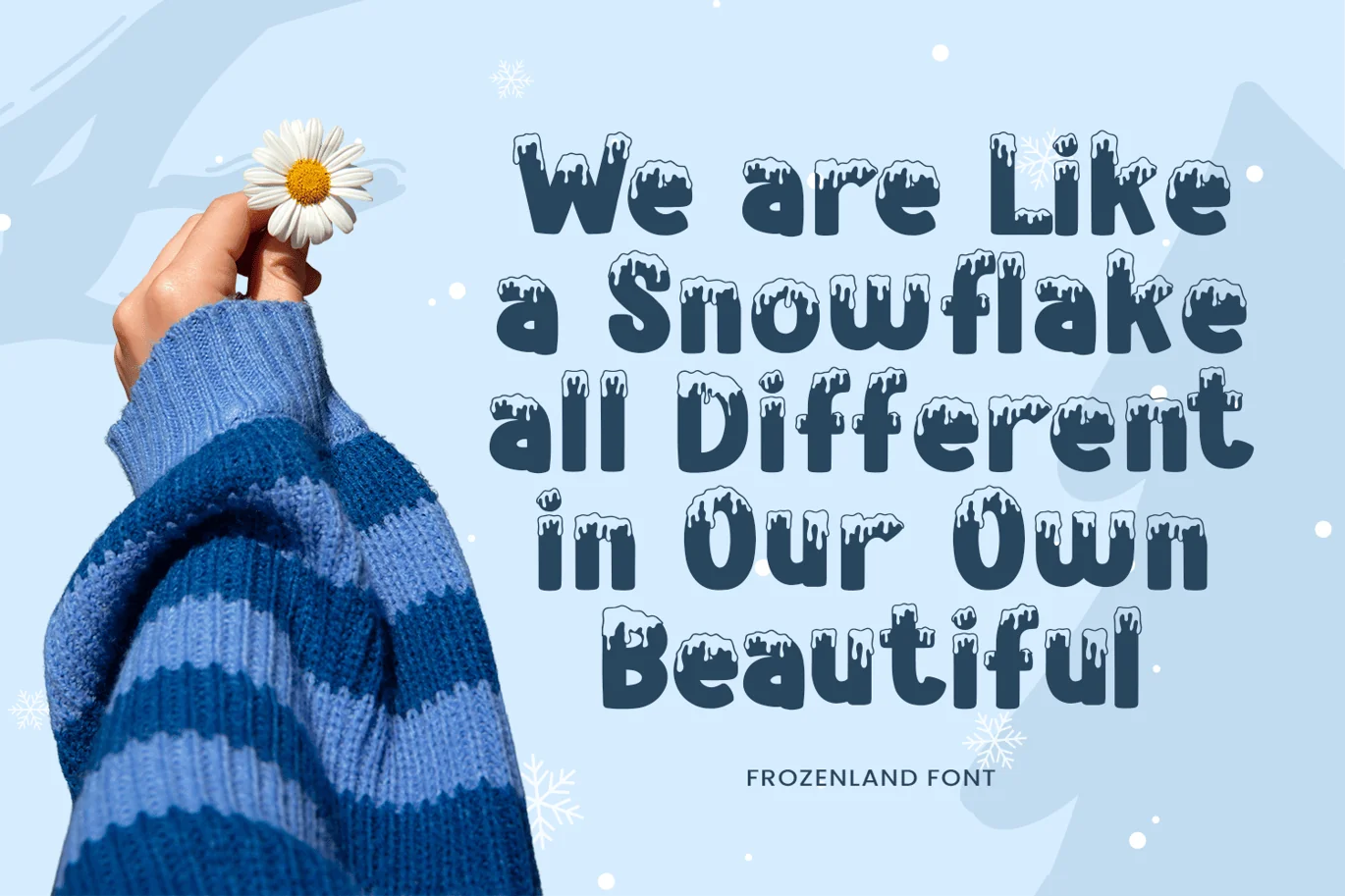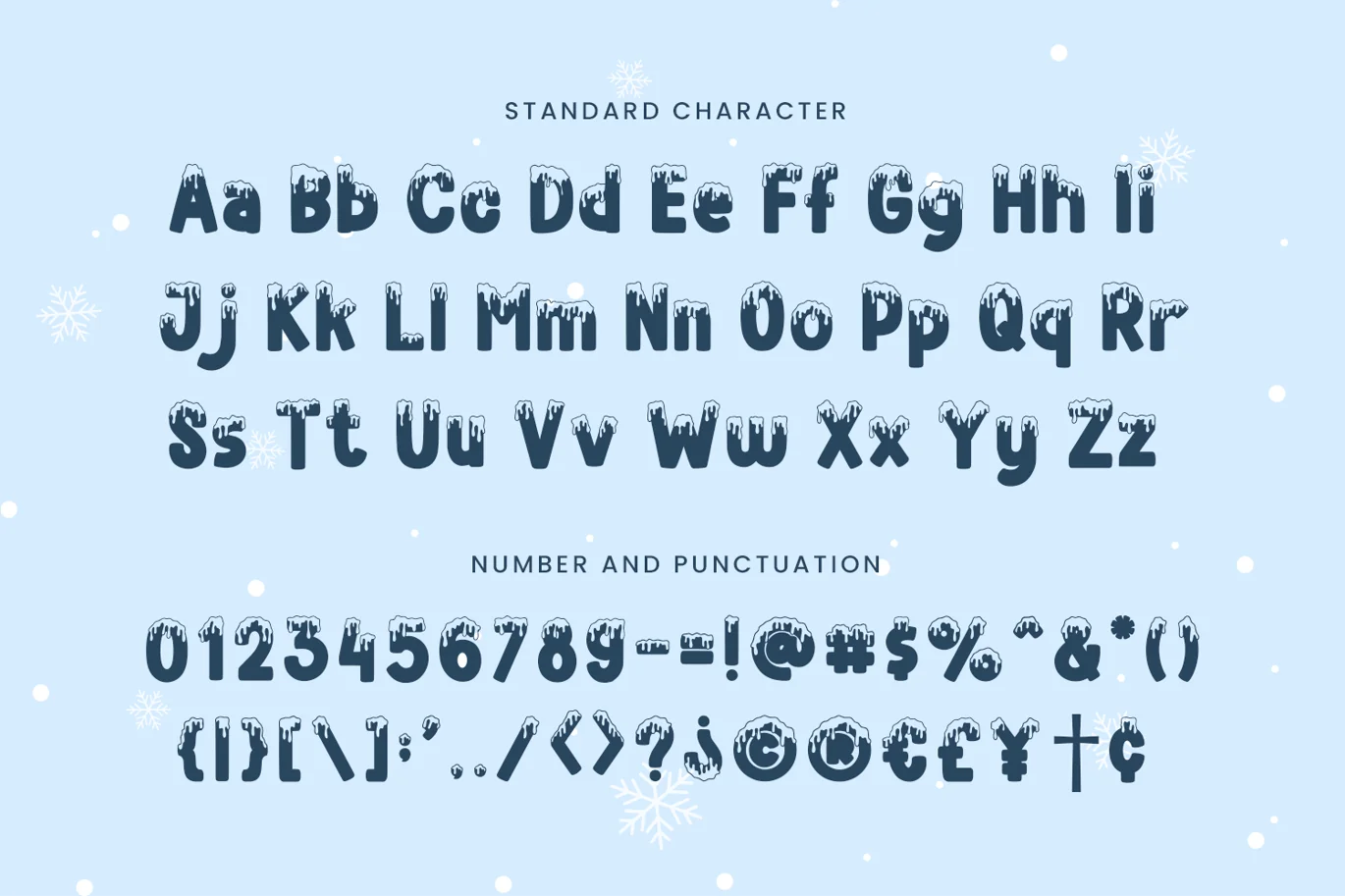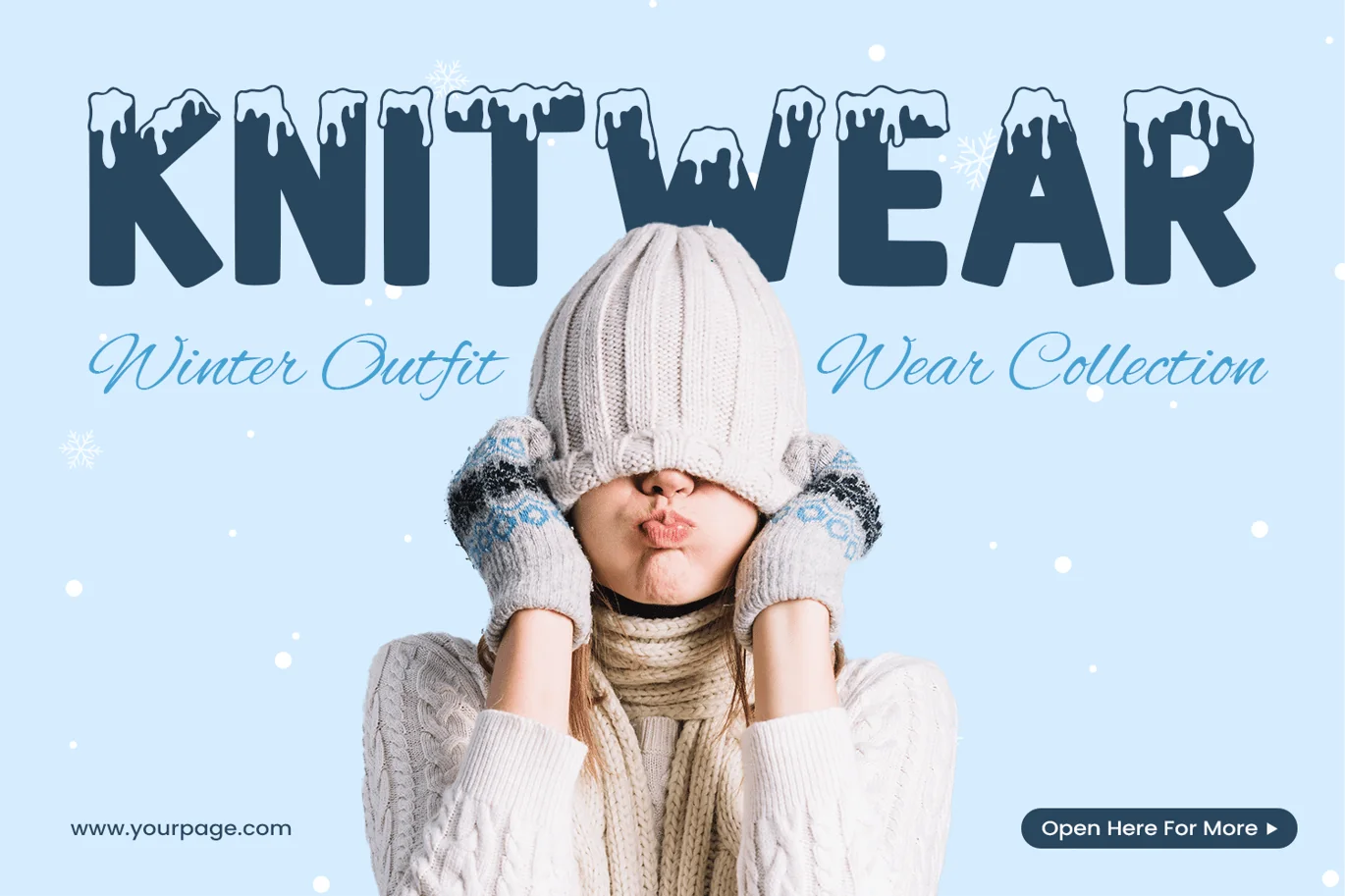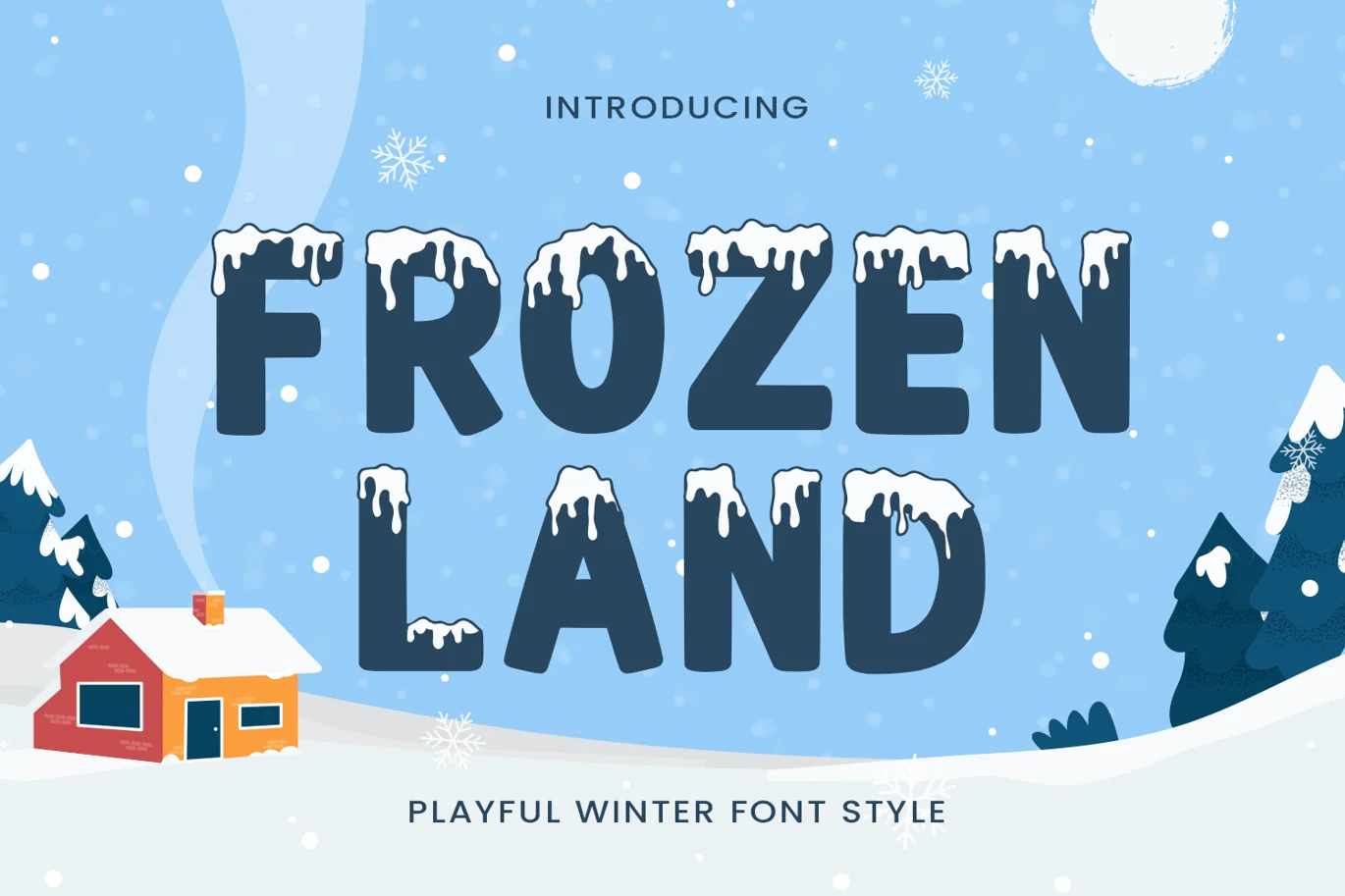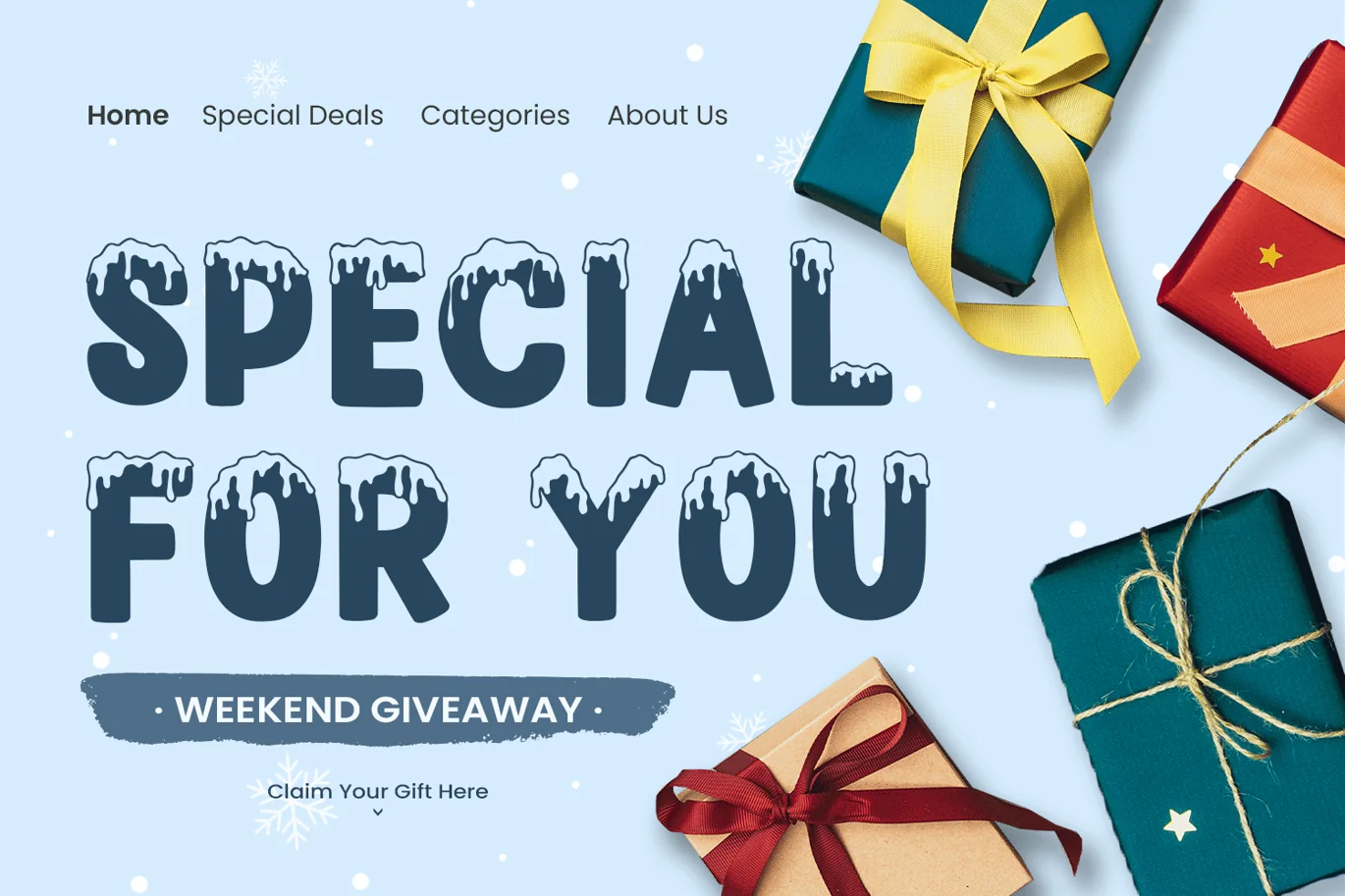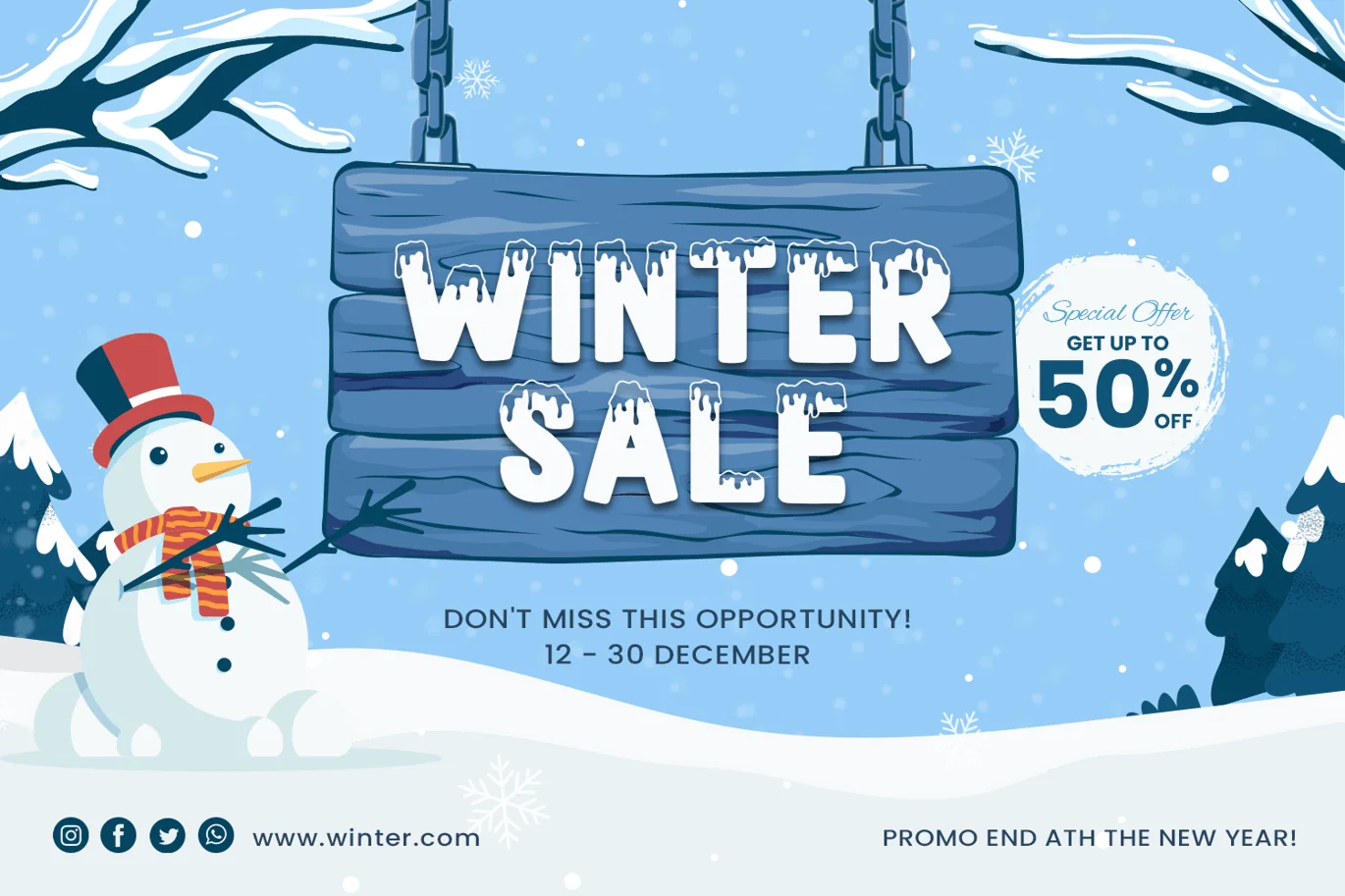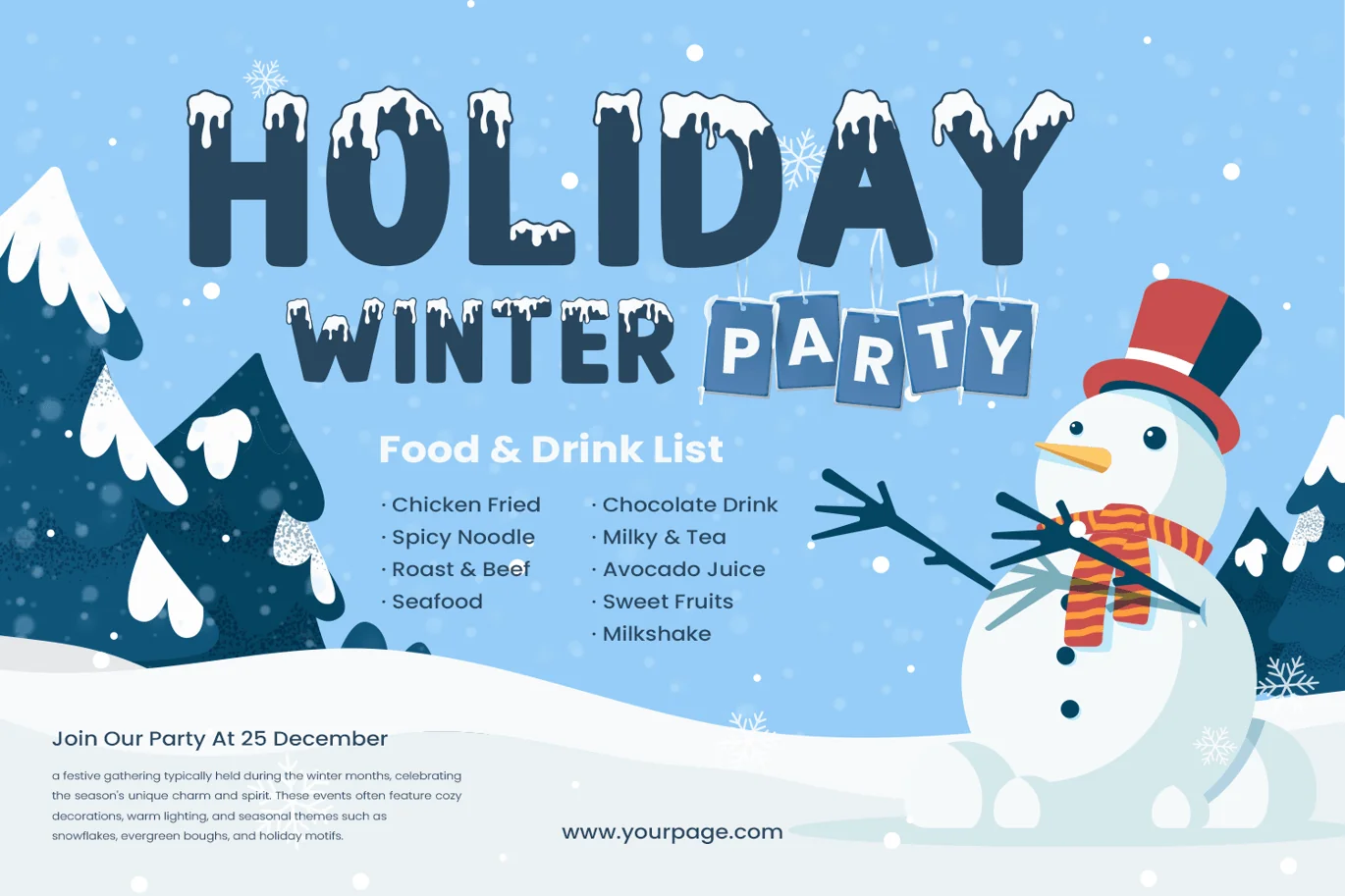
Frozenland – Christmas Font
Introducing Frozenland, the ultimate Christmas and snow-themed font that captures the frosty magic of the holiday season. Each character in Frozenland is adorned with snow-inspired details, giving your designs a whimsical, wintry touch that’s perfect for Christmas cards, festive invitations, and seasonal decorations. The playful curves and icy accents bring the charm of a snow-covered wonderland right to your creative projects, making it ideal for celebrating the coziest time of the year.
Frozenland is versatile enough to be used for a wide range of winter projects, from Christmas crafts and Cricut designs to holiday banners and New Year’s party invitations. Its cool, snow-dusted style gives any design a cozy yet festive feel, perfect for adding a little bit of holiday cheer to your creations. Whether you’re designing a greeting card, social media post, or personalized gift tags, Frozenland ensures your work stands out with its unique, frosty flair.
With PUA encoding, Frozenland makes it easy to access alternate characters, allowing you to add that extra special touch to each letter. This font is a must-have for anyone looking to create magical winter scenes, cheerful Christmas displays, or snowy lettering that sparkles with seasonal spirit. From the first snowfall of winter to the warmth of Christmas gatherings, Frozenland adds a delightful chill to every design.
Bring the magic of winter to your projects with Frozenland! Perfect for turning your holiday ideas into stunning creations, this snow-inspired font will add a touch of frosty charm that’s sure to impress. Add Frozenland to your collection today and let your designs shine like a snowy Christmas morning!